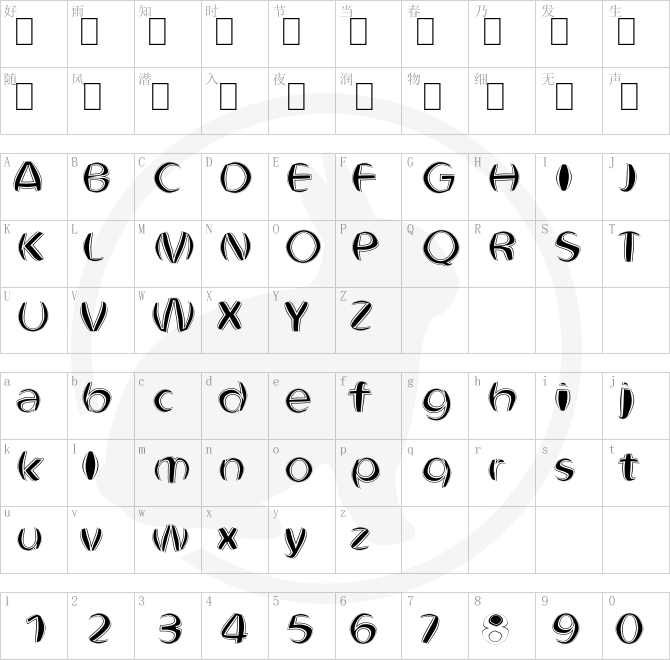
- Font Name:Obtunde Bold
Obtunde-Bold.ttf is a very beautiful artistic font, Obtunde-Bold.ttf is widely used in the design and printing of various books and pictures,Obtunde-Bold.ttf has a strong visual impact,Obtunde-Bold.ttf is a commonly used font in newspapers, magazines and books, and is used in posters, e-commerce Poster design, store design, logo design, font design and other fields.Obtunde-Bold.